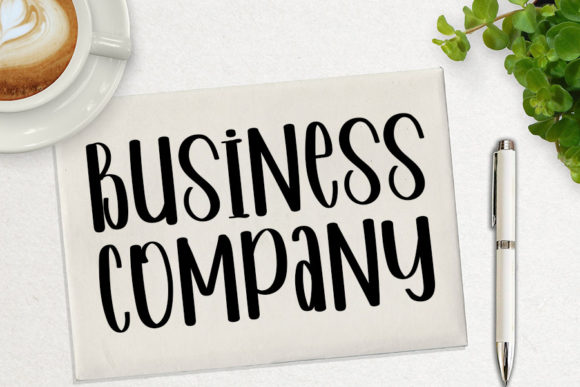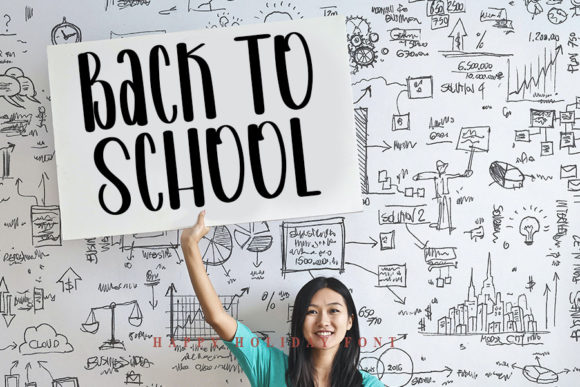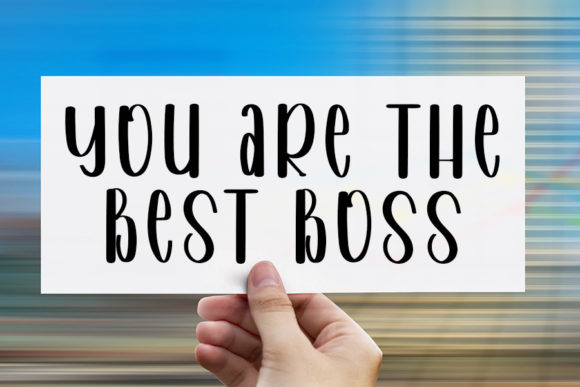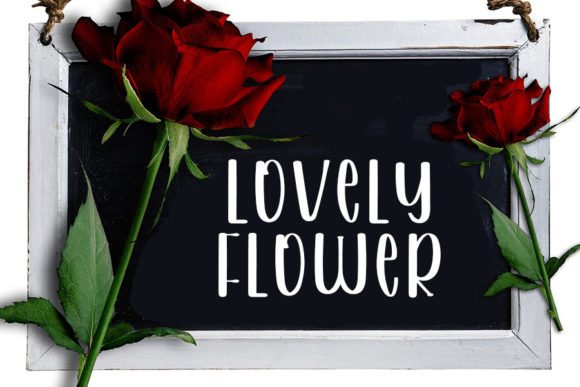
Sometime Font
About Sometime Font
Sometime is a casual handwritten font. Simple and easy to use, this font will be very beautiful if you mix it with your various craft designs.